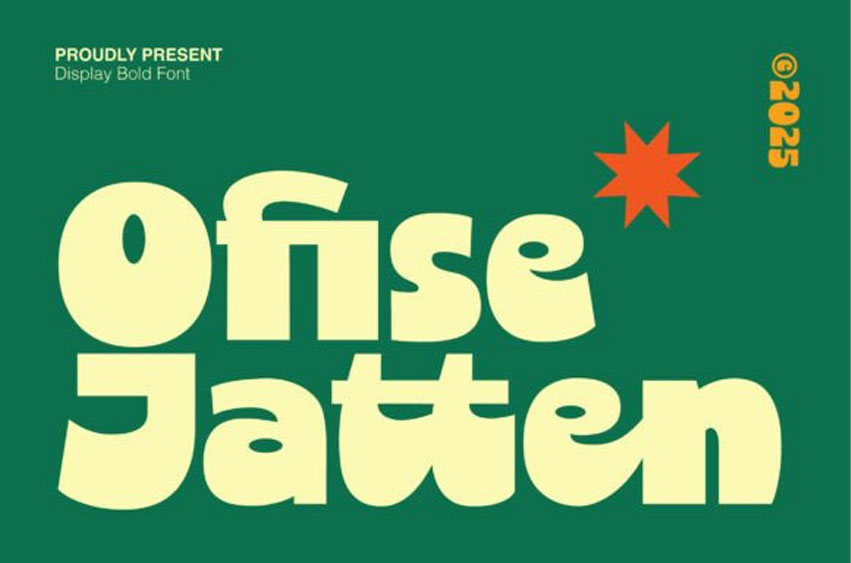
Ofise Jatten Font
Ofise Jatten Font is a bold display font with playful curves and a strong visual presence. Designed to stand out, this typeface features chunky letterforms and dynamic shapes that bring energy, confidence, and a modern personality to your designs. Its bold structure makes it perfect for eye-catching headlines and expressive visual compositions.
The Ofise Jatten typeface features thick, rounded letterforms that project a sense of stability and “no-nonsense” professionalism while remaining approachable. This makes the Ofise Jatten font a standout choice for tech startups, modern interior design portfolios, and bold editorial headlines.
For a truly avant-garde look, pair its heavy weight with minimalist layouts and bright, solid background colors to let its unique silhouettes and “full” curves command the spotlight.
Ideal for posters, branding, packaging, editorial titles, logos, social media graphics, and creative displays, Ofise Jatten delivers a fun yet professional look that instantly grabs attention while remaining highly readable.
Bring character, boldness, and creative impact to your projects with Ofise Jatten.